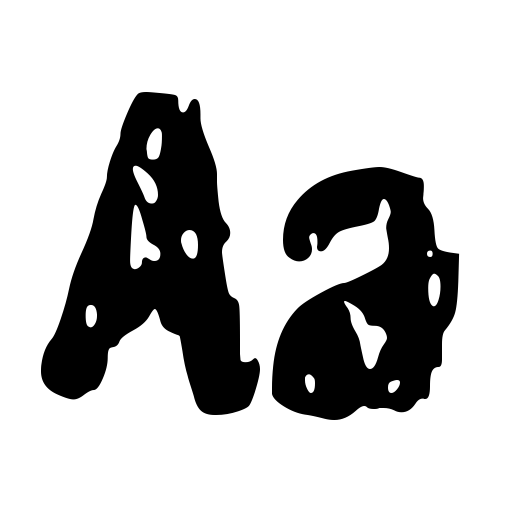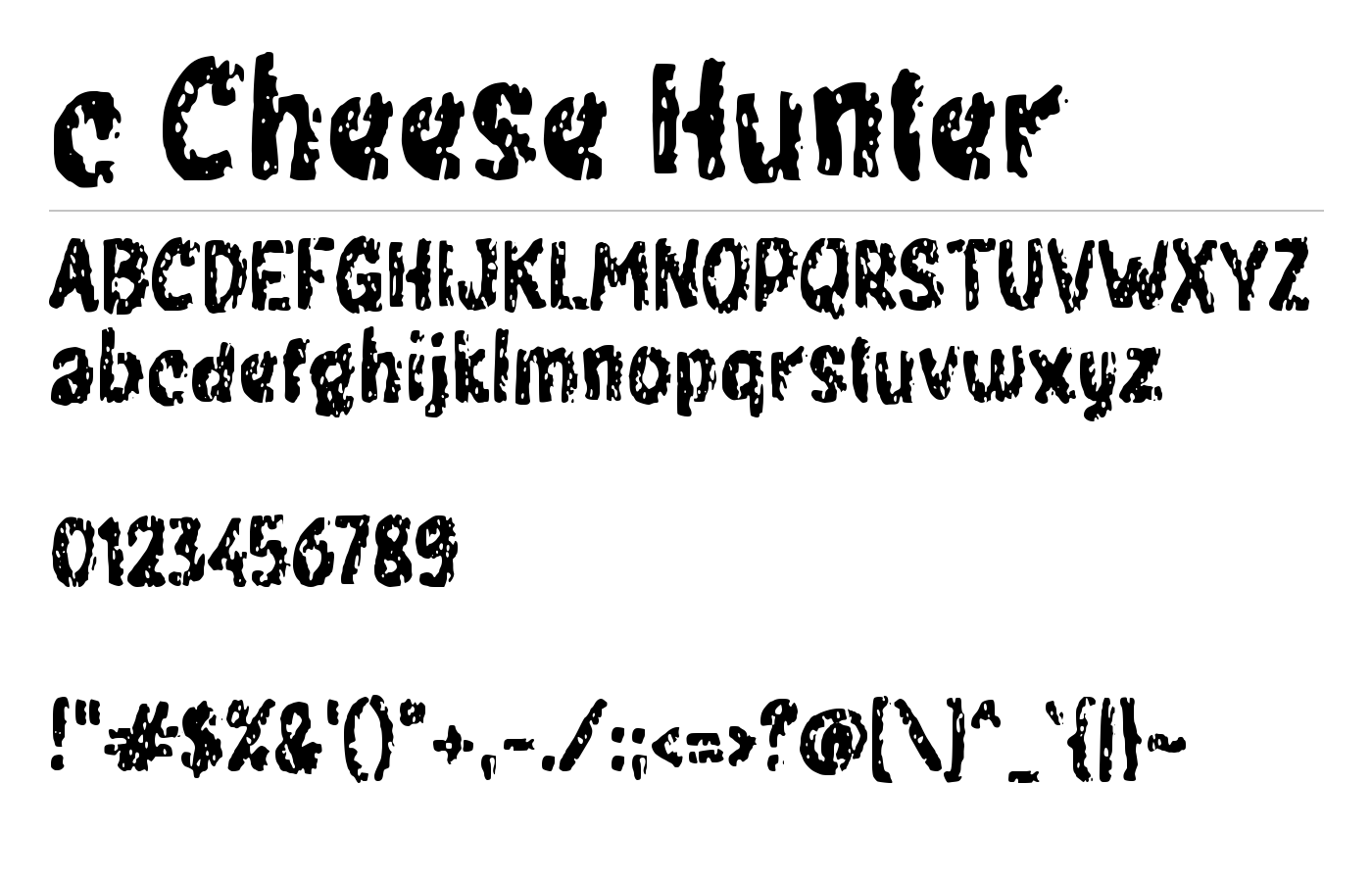
Cheese Hunter is a playful and bold display font with a textured, irregular edge that resembles holes or bites, evoking a fun, quirky character. Its chunky, uneven letterforms make it ideal for eye-catching headlines, posters, and branding related to food, entertainment, or casual themes where a lively, informal tone is desired. This font works best in creative projects needing a whimsical, standout style rather than body text.
c Cheese Hunter Font
About c Cheese Hunter Font